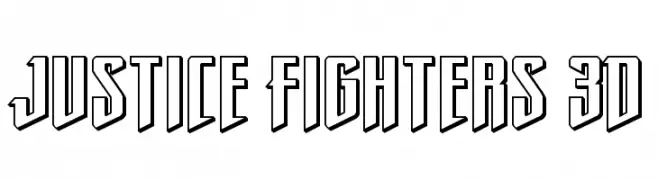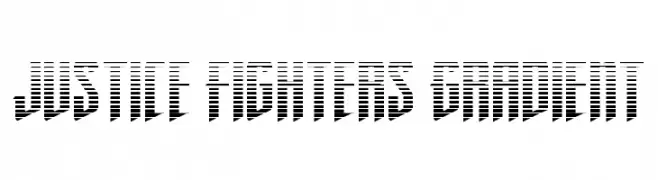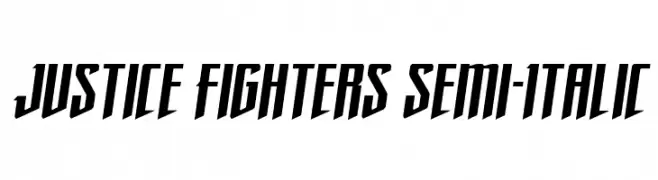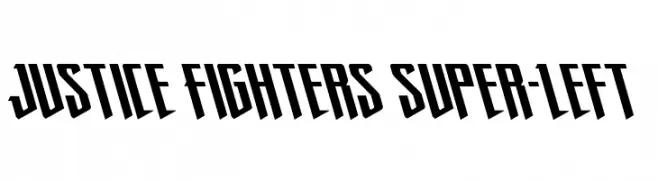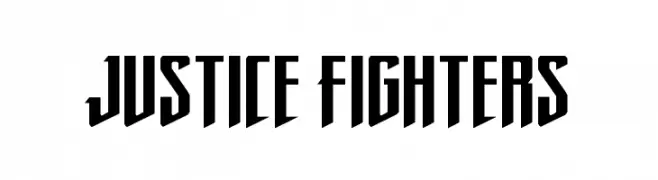
A bold, condensed, and italic font with sharp angles and dynamic style.
A bold, italic font with a dynamic and futuristic style.
A bold, left-leaning font with sharp angles and a dynamic style.
A bold, gradient-striped font with a modern, dynamic style.
A bold, italicized font with a dynamic and angular design.
A bold, angular font with a modern and dynamic style.
A bold, angular font with a futuristic and dynamic style.
A bold, angular font with a dynamic, modern style.
A bold, italicized font with high contrast and a dynamic, condensed style.
A bold, 3D decorative font with angular, geometric letters and strong outlines.